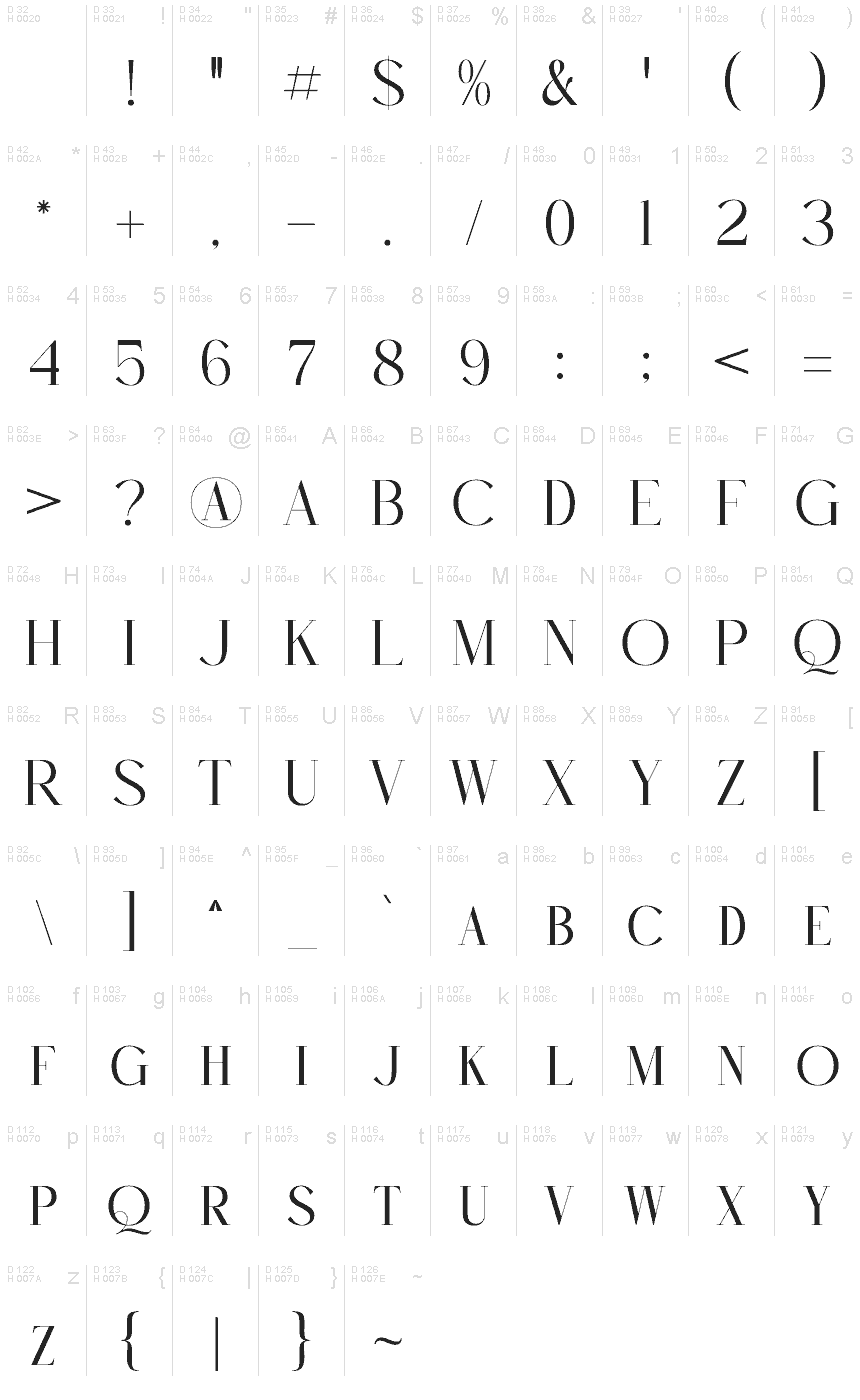
RUGHATO WACNER
Rughato Wacner font by Storytype Studio is an elegant serif typeface with a sophisticated and modern twist. Inspired by a classic influence, this refined font carries a professional aesthetic that makes any design project stand out. Each letter communicates authority and prowess regardless of its size.
Use Rughato Wacner in headlines or logos for beauty products, fashion brands, magazine covers, book covers, packaging designs, posters, social media posts, stationery designs, business cards, and invitations — especially weddings-related materials! This free serif font will also add elegance to certificates or other important documents.